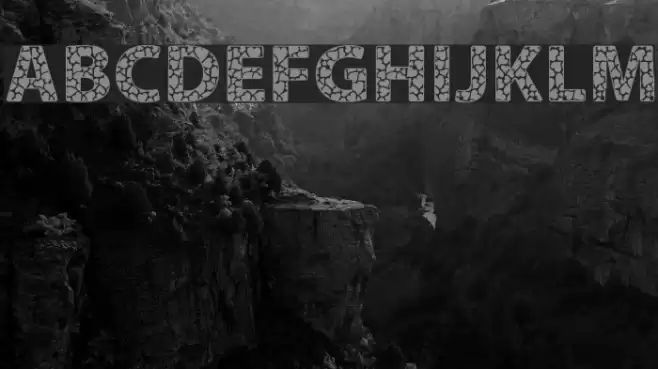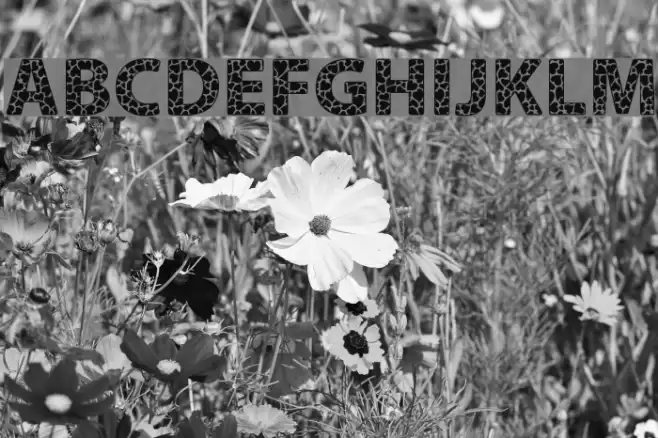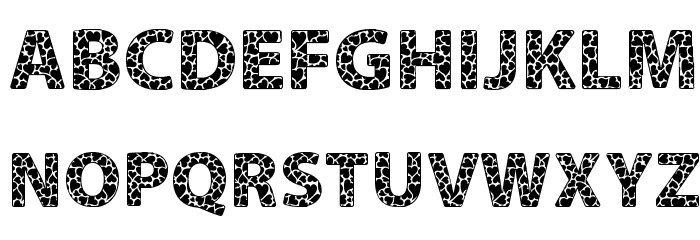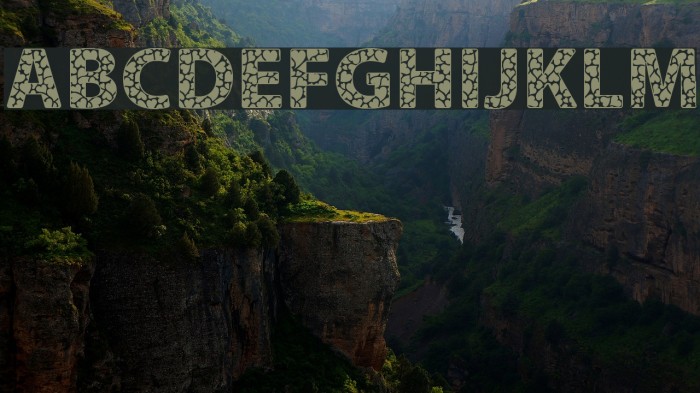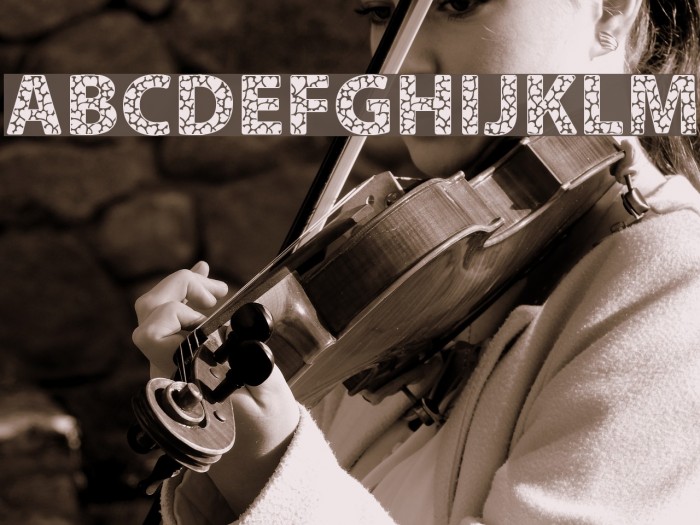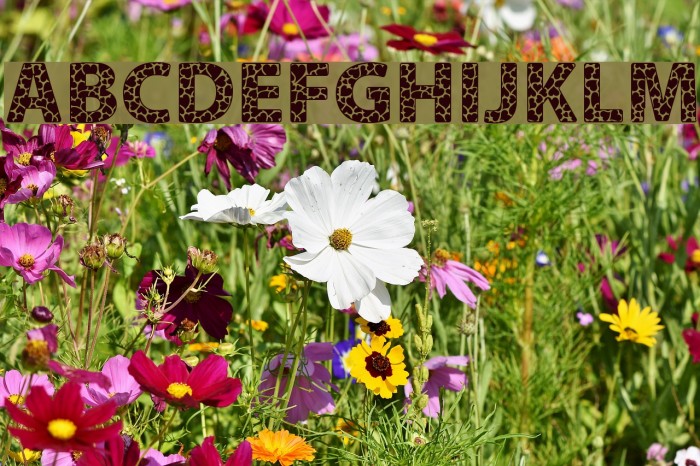
Moltissimo Hearted borders Font
Moltissimo Hearted borders Description
This font features a playful and decorative style with a unique heart pattern filling each letter. The uppercase letters are bold and eye-catching, making them ideal for designs that require a fun and lively touch. The heart motif within each character adds a whimsical and romantic feel, perfect for themed events or creative projects. The font maintains a consistent weight and width, ensuring readability while still offering a distinct visual appeal. Its decorative nature makes it stand out, suitable for projects that aim to convey warmth and affection.
A decorative font with a heart pattern, ideal for playful and romantic designs from Uncategorized fonts.
- Proposed Projects: Valentine's Day cards, wedding invitations, children's party decorations, playful branding materials.
- Use Case: Headlines, Logos, Invitations